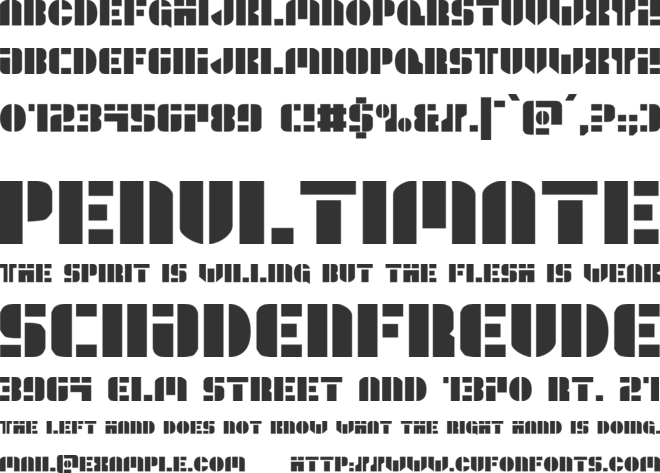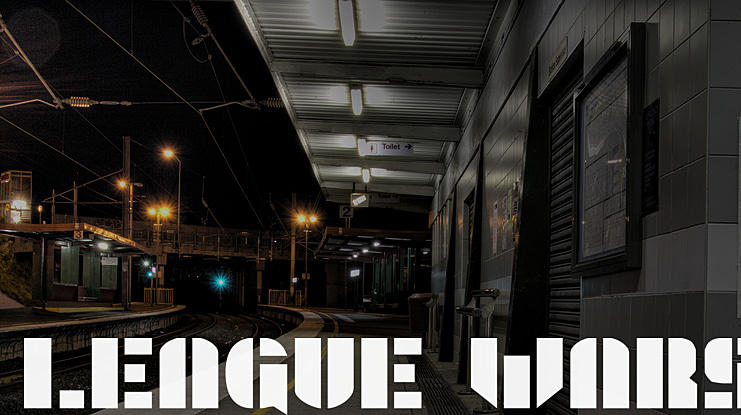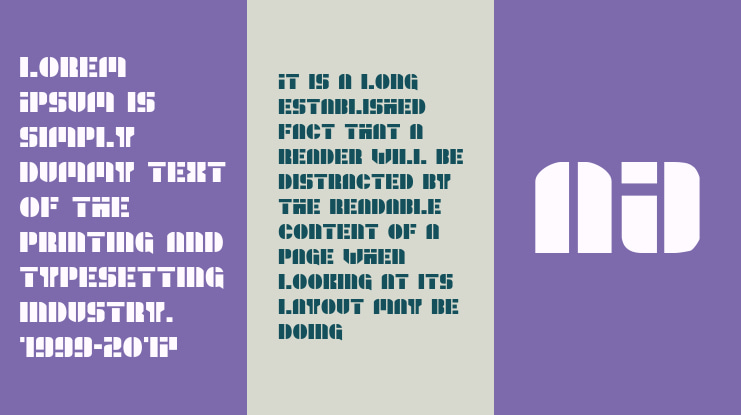
League Wars Font Family
League Wars is a sci-fi stencil font with bold glyphs for bold letters and a futuristic military theme. There is also a complete Latin character set, and lots of alternate letter styles between the upper and lower cases so that you can mix and match to get your preferred look.